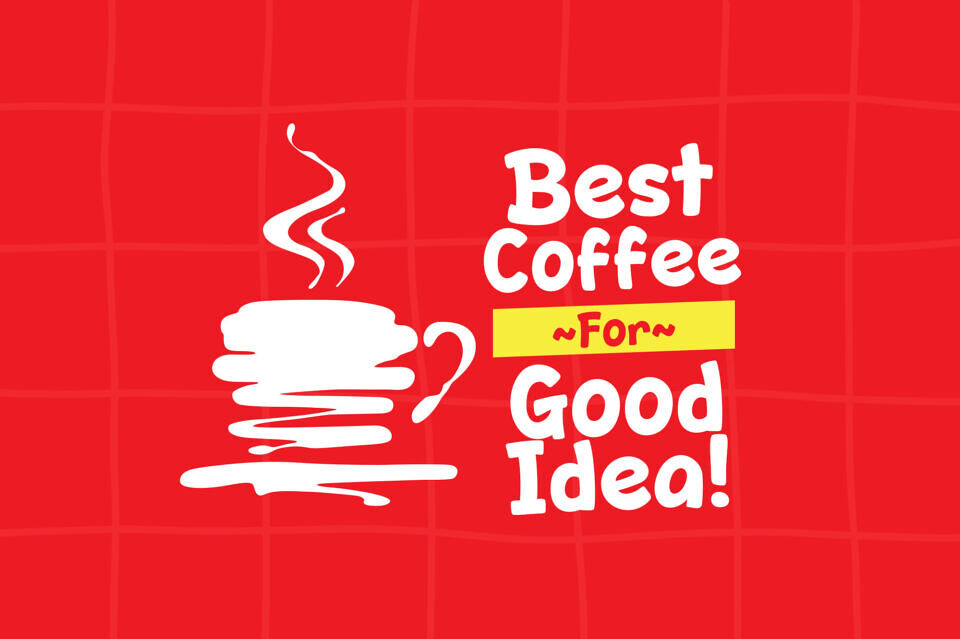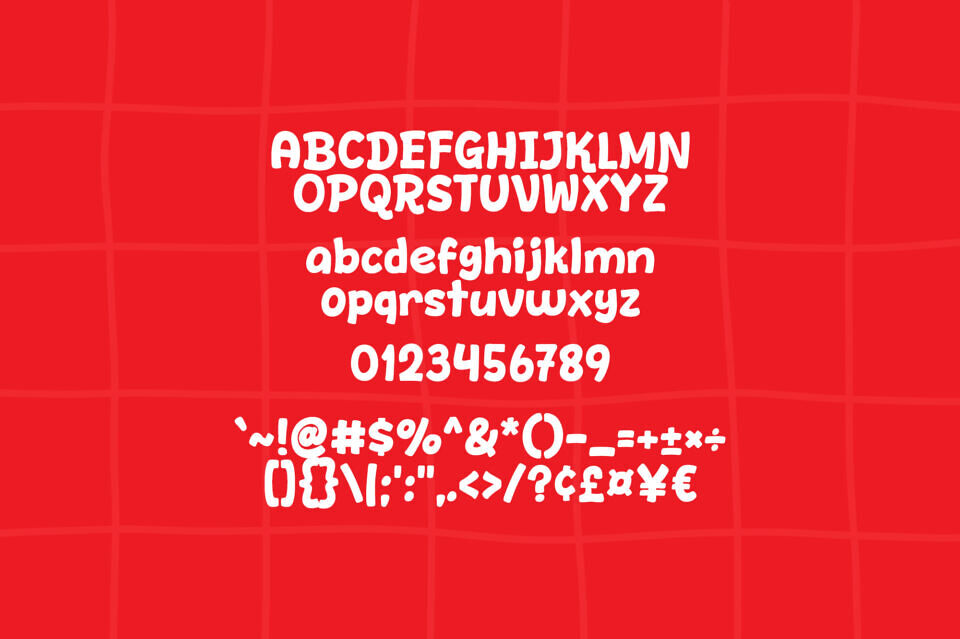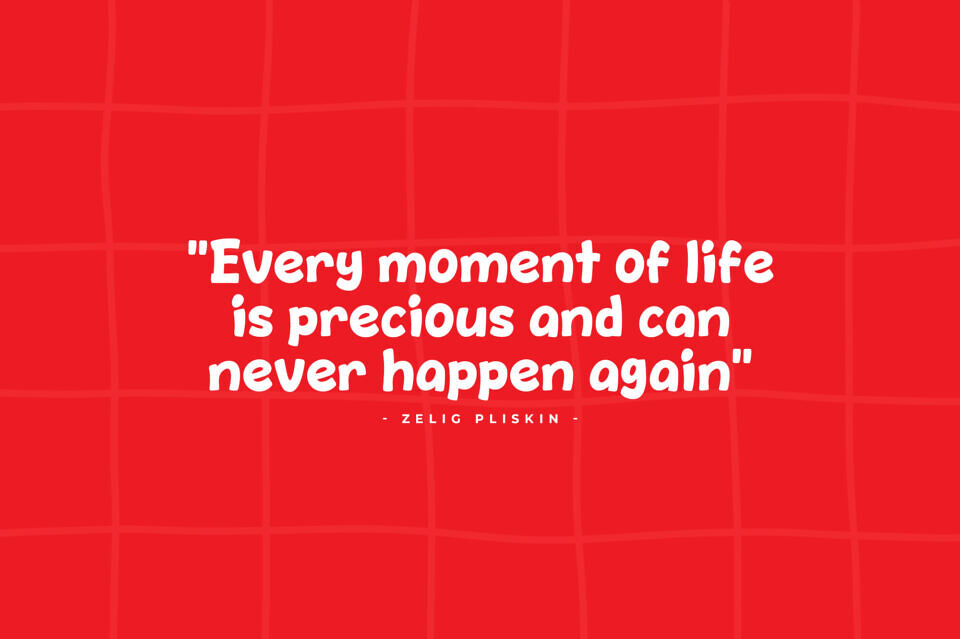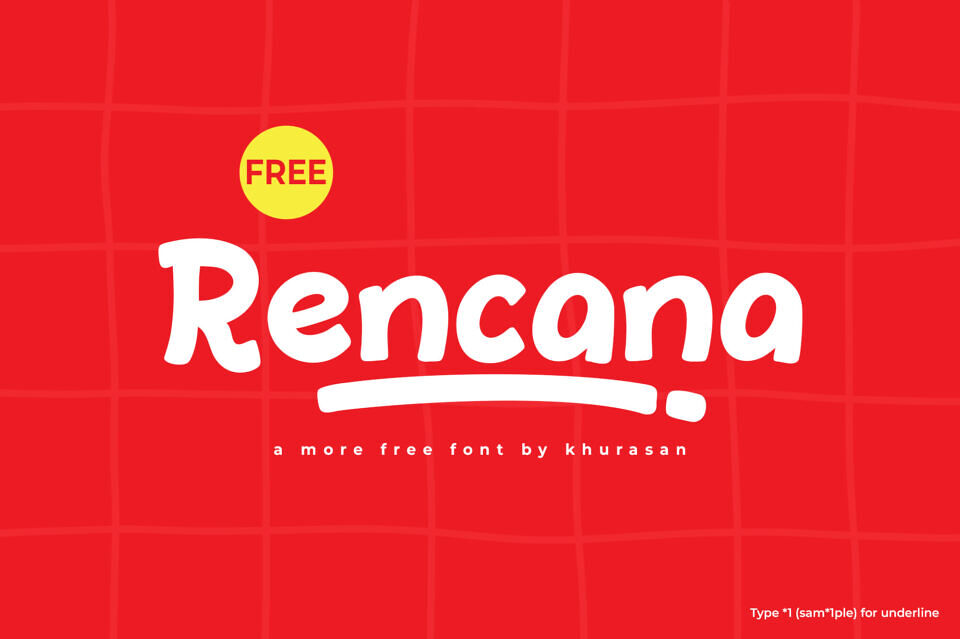
Rencana Font
Rencana is a modern and cute display font perfect for posters, logos, magazines, book covers, banners, and many more! Get this amazing font, and use it to create lovely designs.